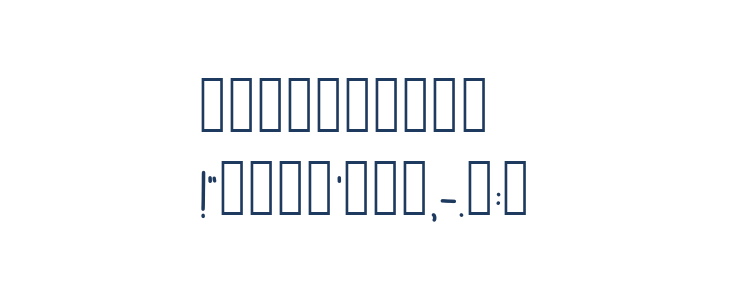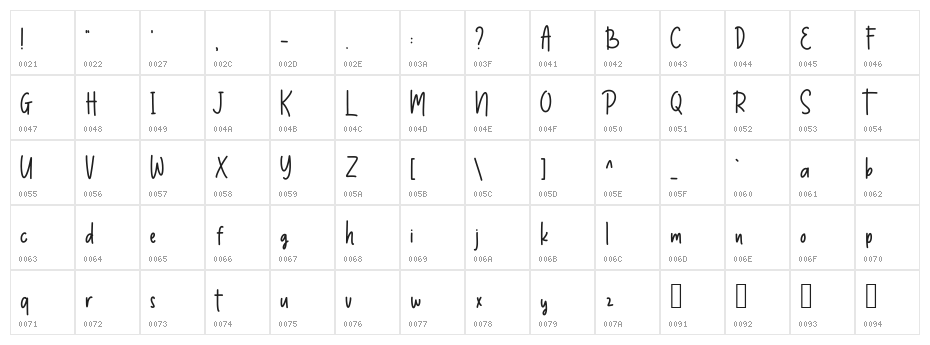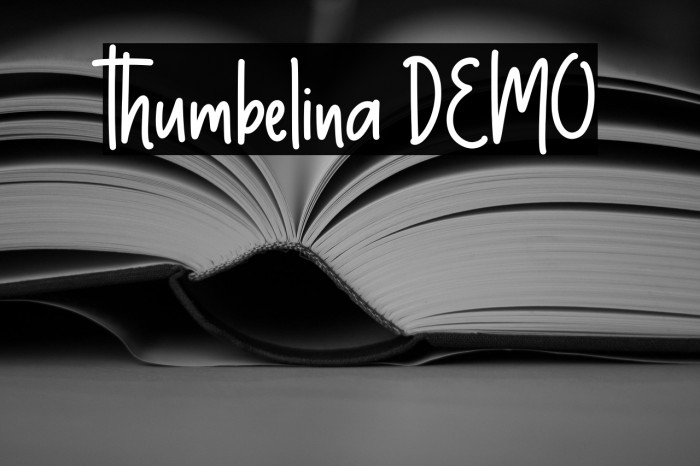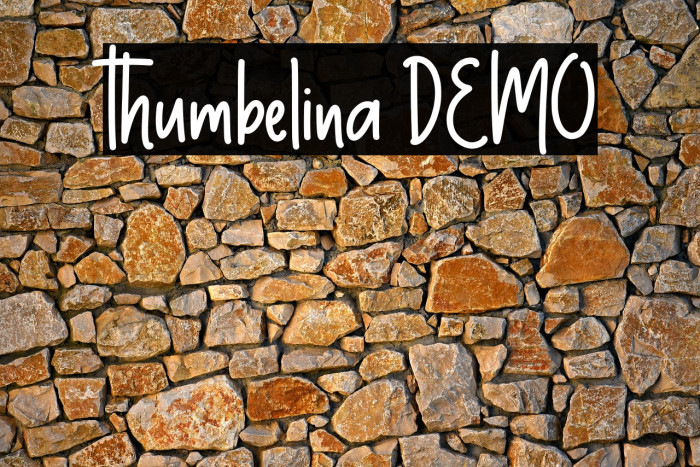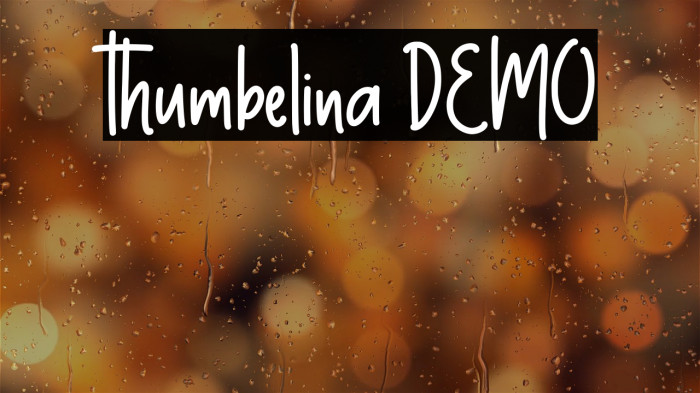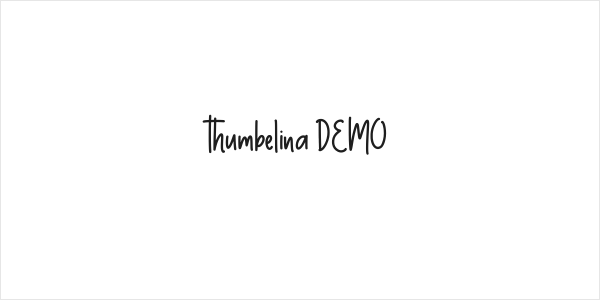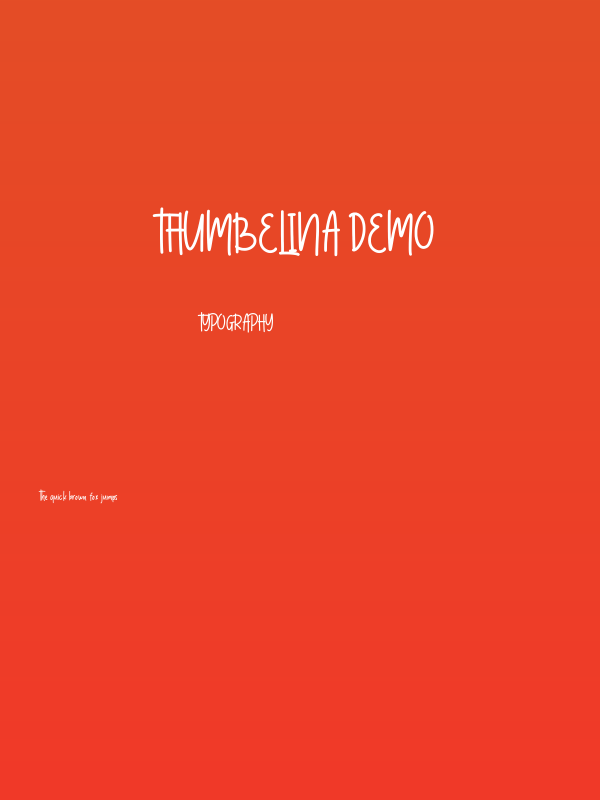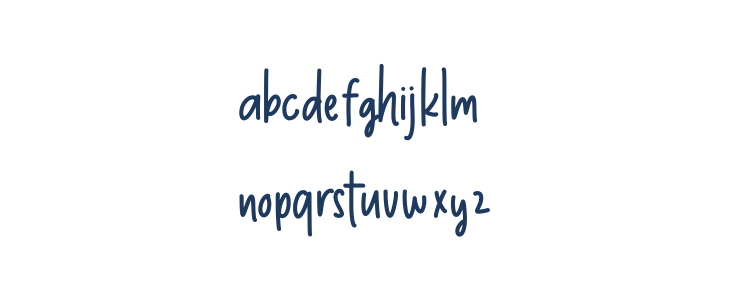
Thumbelina DEMO Font
Thumbelina DEMO Description
This font features a playful and whimsical handwritten style, characterized by its tall, narrow letters and slightly irregular strokes. The uppercase letters are bold and prominent, while the lowercase letters maintain a consistent flow with a casual, friendly appearance. The font includes a full set of uppercase and lowercase letters, numbers, and a selection of punctuation marks. The strokes are smooth and rounded, giving it a soft and approachable feel. This font is ideal for projects that require a personal touch or a sense of fun and creativity.